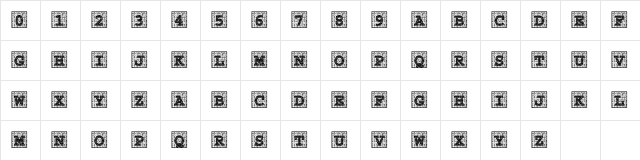
Courier Initials Regular Font Preview
Courier Initials Regular
Courier Initials Regular Font Details
Design Context for Courier Initials Typeface
Courier Initials uses fixed-width spacing throughout, giving it the structured, systematic character associated with coding environments and technical documentation.
A natural fit for code editors, technical documentation, developer-focused branding, and terminal-inspired UI.
Pro Tip: Pair Courier Initials with a proportional sans for UI contexts where code-style labels and regular body copy need to coexist.